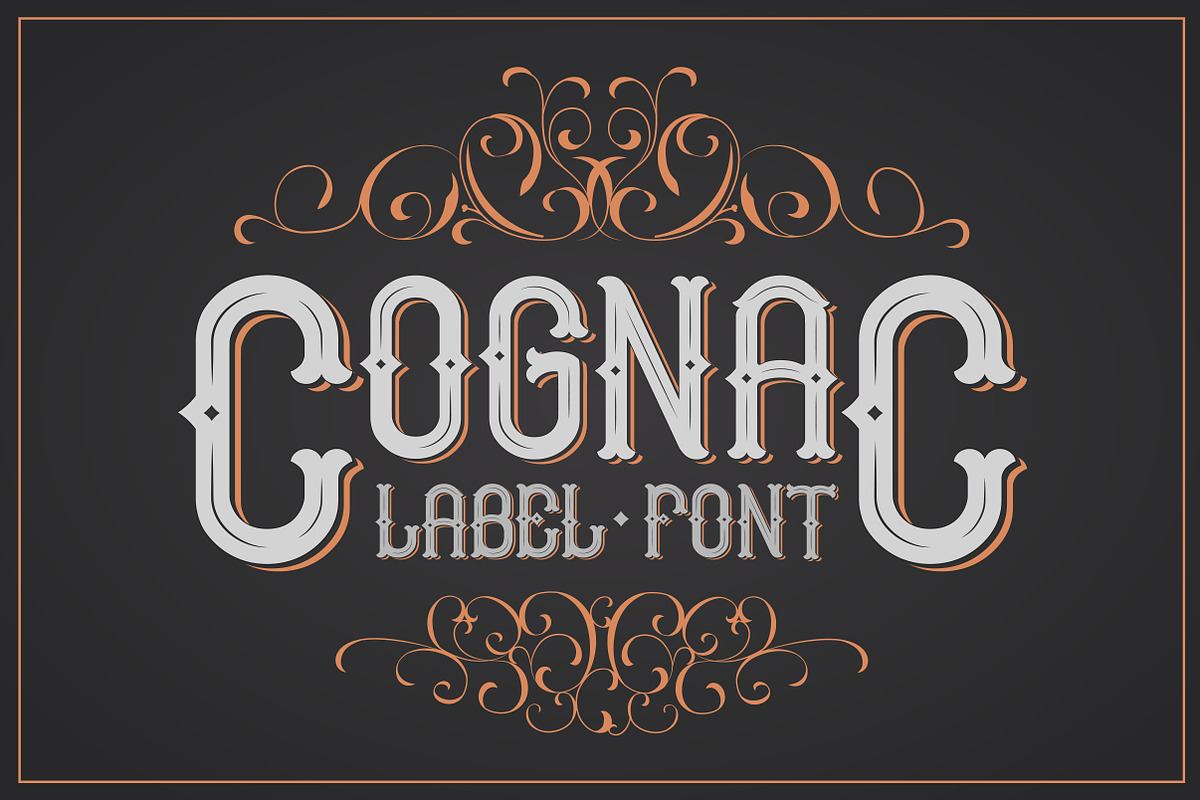
Please note that you must purchase this font for commercial use. You can download Cognac – Font for Label for free, strictly for personal testing purposes only. Cognac is a refined, vintage-inspired serif display font crafted specifically for labels, packaging, and branding that require a touch of heritage and sophistication. With its sharp serifs, elegant curves, and timeless character, Cognac Font Free Download is perfect for liquor labels, boutique branding, apothecary packaging, menus, and vintage-style logos.
The font evokes old-world charm while maintaining readability and a premium feel, making it ideal for both modern luxury and retro designs. Cognac typically includes uppercase letters, numerals, punctuation, and multilingual support—offering creative flexibility for global packaging and product design.
Whether you're crafting a high-end spirits label or a bespoke brand identity, Cognac delivers style, elegance, and authenticity.